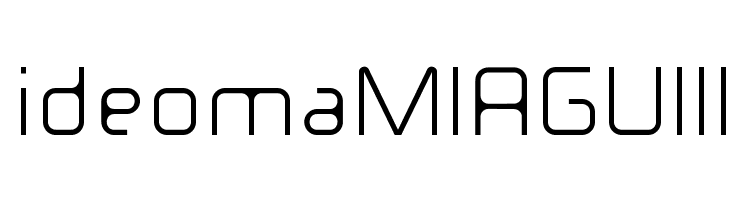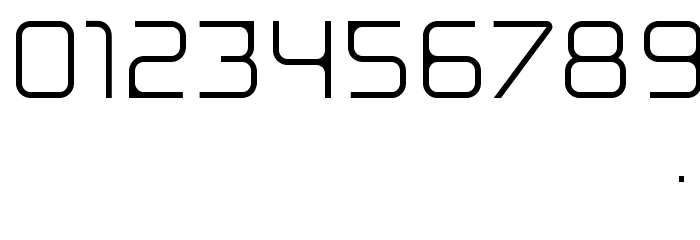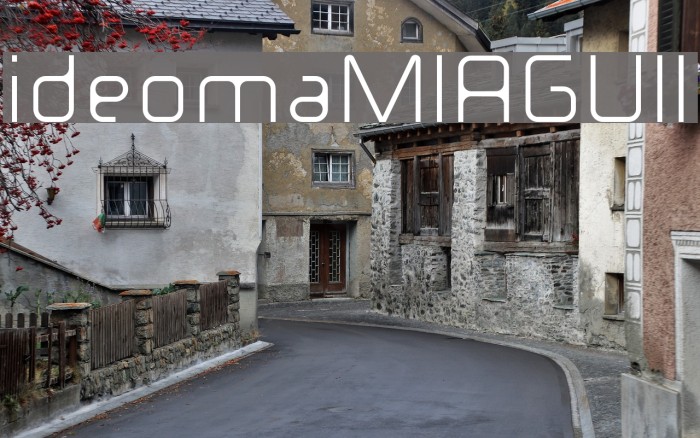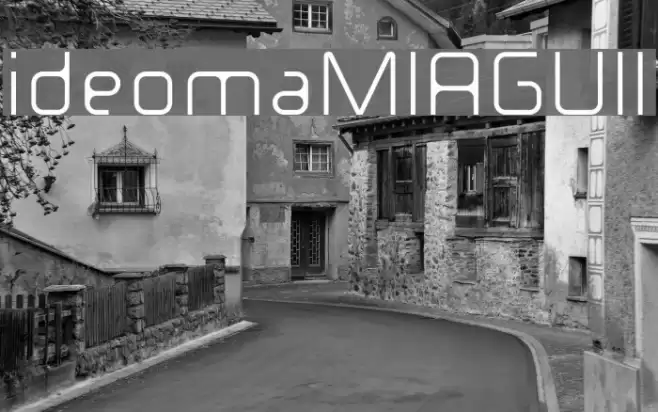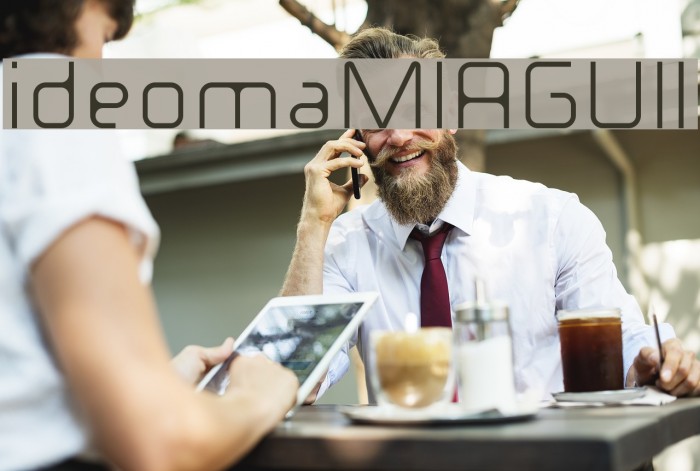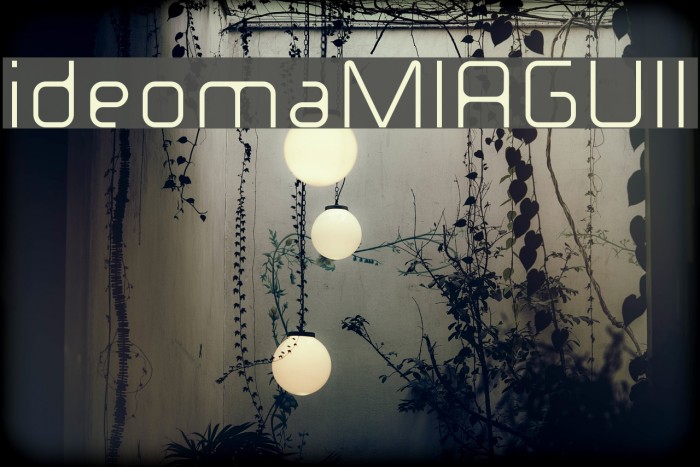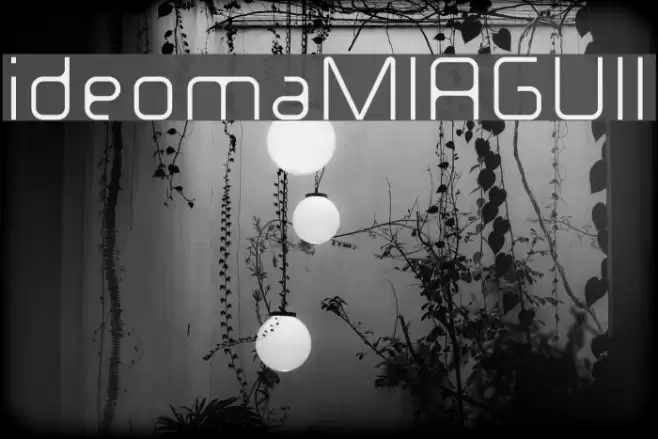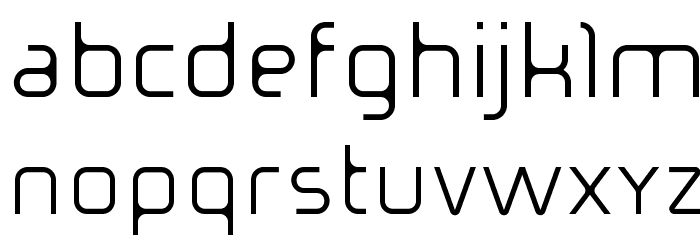
ideomaMIAGUIII Font
ideomaMIAGUIII Description
This font features a modern, geometric design with clean lines and rounded edges. The characters are uniform in height, creating a cohesive and balanced appearance. The uppercase letters are bold and structured, while the lowercase letters maintain a consistent style with slightly softer curves. The numerals are distinct and easy to read, following the same geometric principles. The special characters blend seamlessly with the rest of the font, maintaining the overall aesthetic. This font is versatile and can be used in various design projects that require a contemporary and sleek look.
| Use Case | Headlines, Logos, Digital Interfaces |
| Proposed Projects | Ideal for tech branding, modern advertising, digital interfaces, and minimalist design projects. |